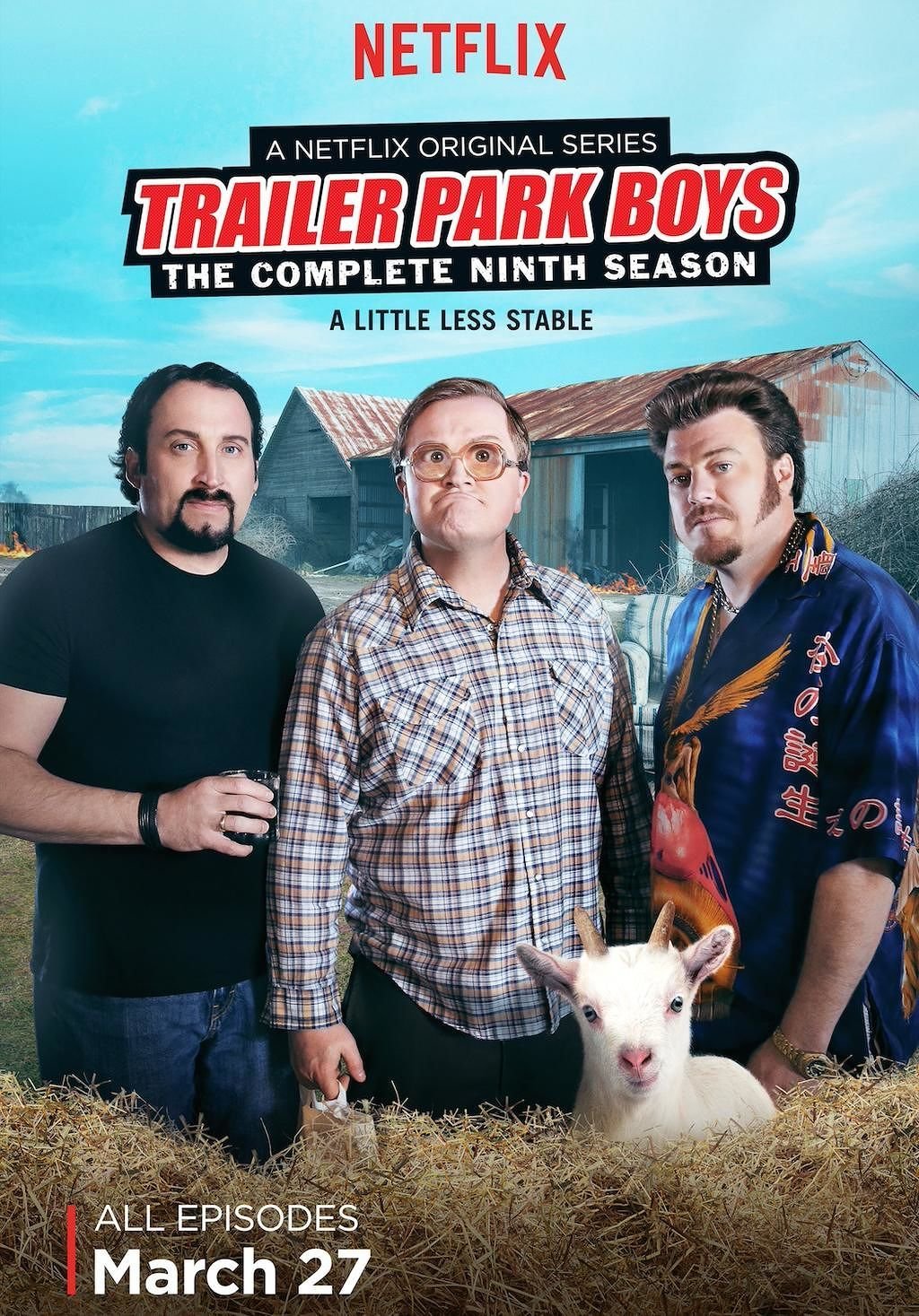
Trailer Park Boys Font
ComedyTrailer Park Boys is a Canadian mockumentary television series that follows the lives of three longtime friends, Ricky, Julian, and Bubbles, who are petty criminals living in a trailer park in Nova Scotia.
The Trailer Park Boys title seems to use a slanted condensed sans serif Impact. Designed by Geoffrey Lee for the Stephenson Blake Foundry in 1965. Another free alternative that can be used to replicate the title lettering is Ignite by OPTIFont. You can download Ignite for free in the Fonts Used Section.